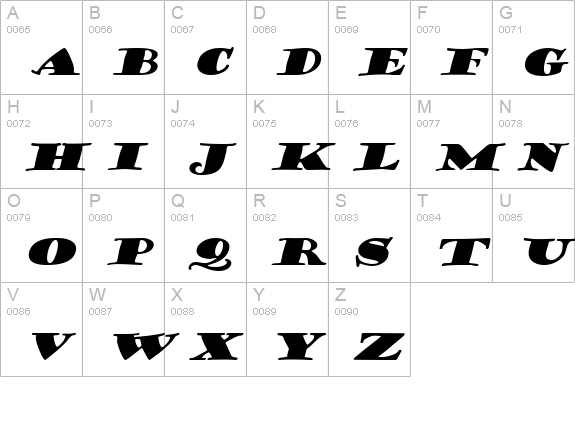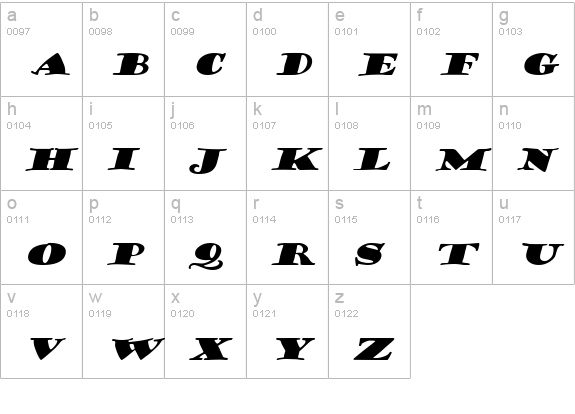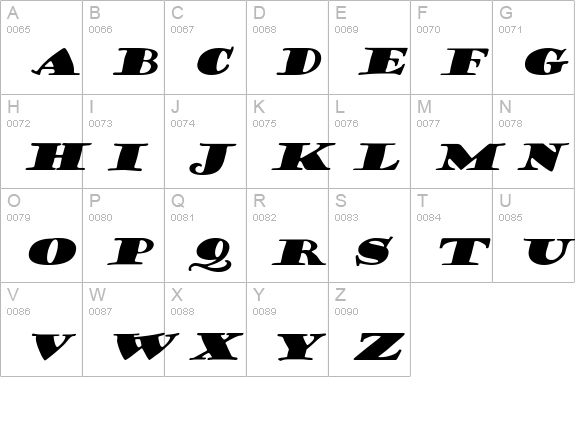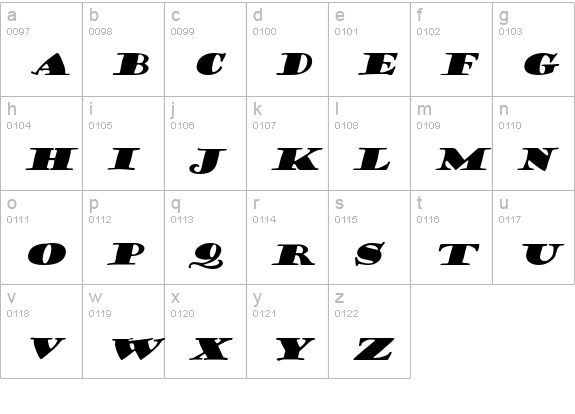
CoffeeSackExtended Italic Font Details
CoffeeSackExtended Italic is a distinctive, italic variant in the CoffeeSackExtended typeface family \xE2\x80\x94 well suited to design and typography projects.
CoffeeSackExtended Italic is a sleek and stylish font that exudes sophistication and elegance. Its italicized design adds a touch of flair and modernity to any project, making it ideal for branding, headlines, and design projects that require a touch of sophistication. The extended letterforms give this font a unique and eye-catching look that will make your text stand out. Best of all, CoffeeSackExtended Italic is available for free download at FontsMarket.com. This means you can elevate your designs with this stunning font without breaking the bank. Don't miss out on the opportunity to add CoffeeSackExtended Italic to your font library and take your projects to the next level.